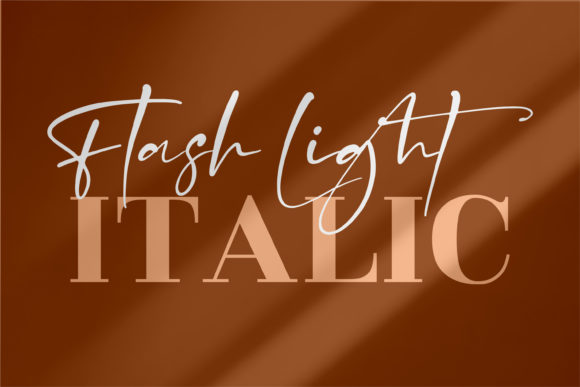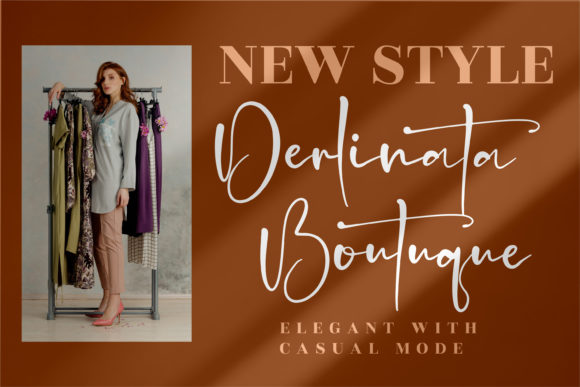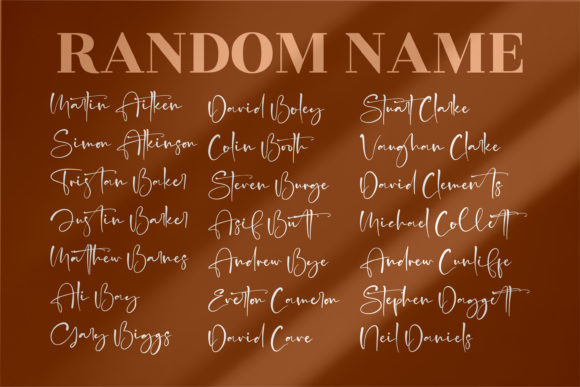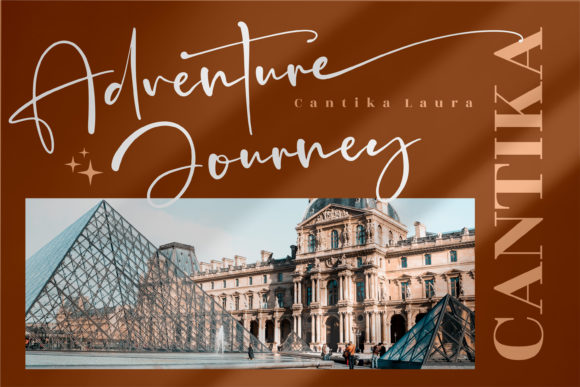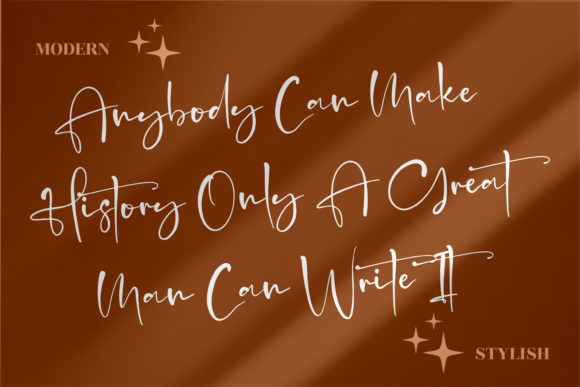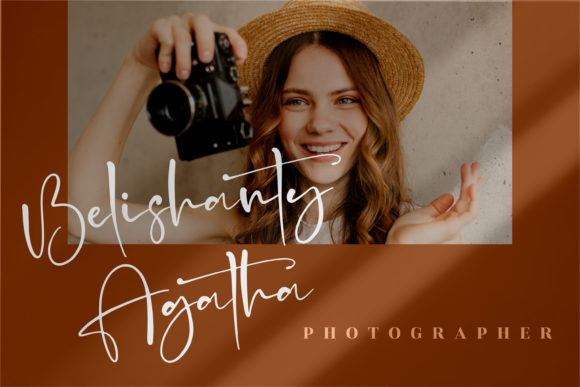
Introducing Flash Light Font: Elevate Your Designs with Elegance and Sophistication
In the world of typography, fonts play a crucial role in conveying the tone and personality of a design. For designers and crafters seeking to add a touch of sophistication and elegance to their projects, the Flash Light Font is an excellent choice. This chic, thin lettered script font is designed to make a statement, and its stylish alternates and ligatures make it the perfect match for a wide range of applications.
What is Flash Light Font?
Flash Light Font is a beautiful, hand-crafted script font that exudes refinement and luxury. Its delicate, thin letters are carefully designed to create a sense of elegance and poise, making it ideal for designs that require a touch of sophistication. Whether you’re working on a branding project, a wedding invitation, or a packaging design, Flash Light Font is sure to impress.
Key Features of Flash Light Font
• Stylish Alternates and Ligatures: The font comes with a range of stylish alternates and ligatures that add a touch of uniqueness and personality to your designs. These alternates and ligatures can be used to create beautiful, flowing text that is sure to capture the attention of your audience.
• Thin Lettered Script: The thin lettered script of Flash Light Font is designed to create a sense of elegance and sophistication. The delicate letters are perfect for designs that require a touch of refinement and luxury.
Use Cases for Flash Light Font
Flash Light Font is a versatile font that can be used in a wide range of applications, including:
• Branding and Logo Design: The elegant and sophisticated design of Flash Light Font makes it perfect for branding and logo design projects. The font can be used to create a luxurious and refined brand identity that is sure to impress.
• Wedding Invitations and Stationery: The delicate and elegant design of Flash Light Font makes it ideal for wedding invitations and stationery. The font can be used to create beautiful, flowing text that adds a touch of romance and sophistication to your designs.
• Packaging Design: Flash Light Font can be used in packaging design to add a touch of elegance and sophistication to your products. The font is perfect for luxury brands that require a refined and high-end look.
Tips for Using Flash Light Font
To get the most out of Flash Light Font, here are a few tips to keep in mind:
• Use it sparingly: Flash Light Font is a delicate font that works best when used sparingly. Use it for headings or titles to add a touch of elegance and sophistication to your designs.
• Experiment with alternates and ligatures: The stylish alternates and ligatures of Flash Light Font are designed to add a touch of uniqueness and personality to your designs. Experiment with different alternates and ligatures to find the perfect combination for your project.
• Pair it with other fonts: Flash Light Font can be paired with other fonts to create a unique and interesting contrast. Try pairing it with a bold sans-serif font to create a striking combination.
In conclusion, Flash Light Font is a beautiful and elegant script font that is perfect for designers and crafters seeking to add a touch of sophistication and luxury to their projects. With its stylish alternates and ligatures, PUA encoding, and delicate thin lettered script, Flash Light Font is sure to impress. Whether you’re working on a branding project, a wedding invitation, or a packaging design, Flash Light Font is an excellent choice.